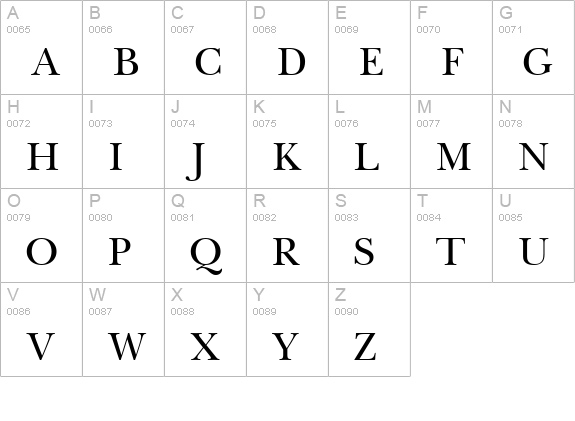
Baskerville Cyrillic Upright Font Details
Baskerville Cyrillic Upright font is a timeless and elegant typeface that seamlessly blends classic sophistication with modern readability. Its clean lines and graceful curves make it an ideal choice for a wide range of design projects, from formal invitations to editorial layouts. This exquisite font features Cyrillic characters that add a touch of cultural richness and diversity to your designs. Whether you are working on a branding project or creating a stylish website, Baskerville Cyrillic Upright font will elevate your work with its refined aesthetic. Best of all, this stunning font is available for free download at FontsMarket.com. Simply visit the website to access this versatile typeface and enhance your design projects with its timeless charm and elegance.